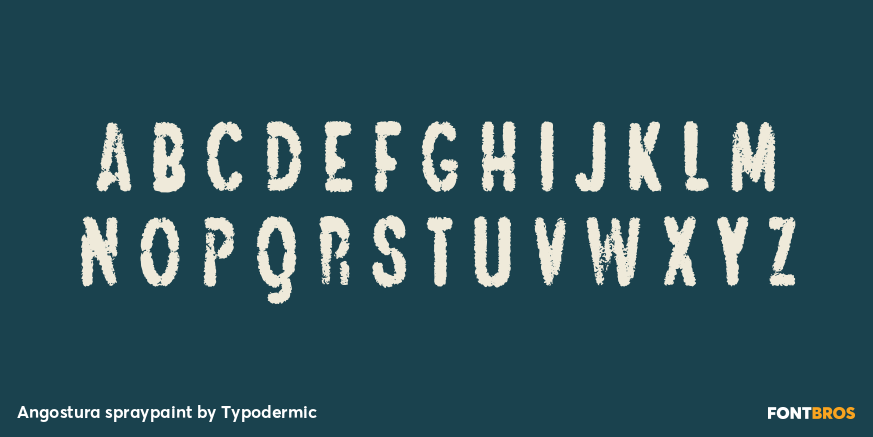
Angostura spraypaint
Angostura Spraypaint turns the family’s condensed sign-lettering skeleton into a rough aerosol treatment. Uneven coverage and broken edges give large words the immediacy of lettering sprayed through a handmade mask, while Angostura’s narrow proportions keep long venue names, event titles and stacked messages compact.
Use Spraypaint for pop-up markets, guest-chef nights, tournament posters, opening-soon graphics, music events, street-level promotions and temporary wayfinding. It is designed for prominent words and short phrases where the texture has room to register. Pair it with Angostura’s clean weights for schedules, directions and supporting copy to keep an expressive campaign connected to the permanent identity.